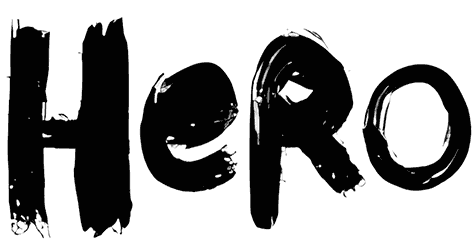
Hero Font
Hero is an all-caps horror font that has a unique form and comes with wavy characters; thus, it looks perfectly fit for a long list of creative ideas like social media posts, logos, stickers, video game brochures, or digital banners.